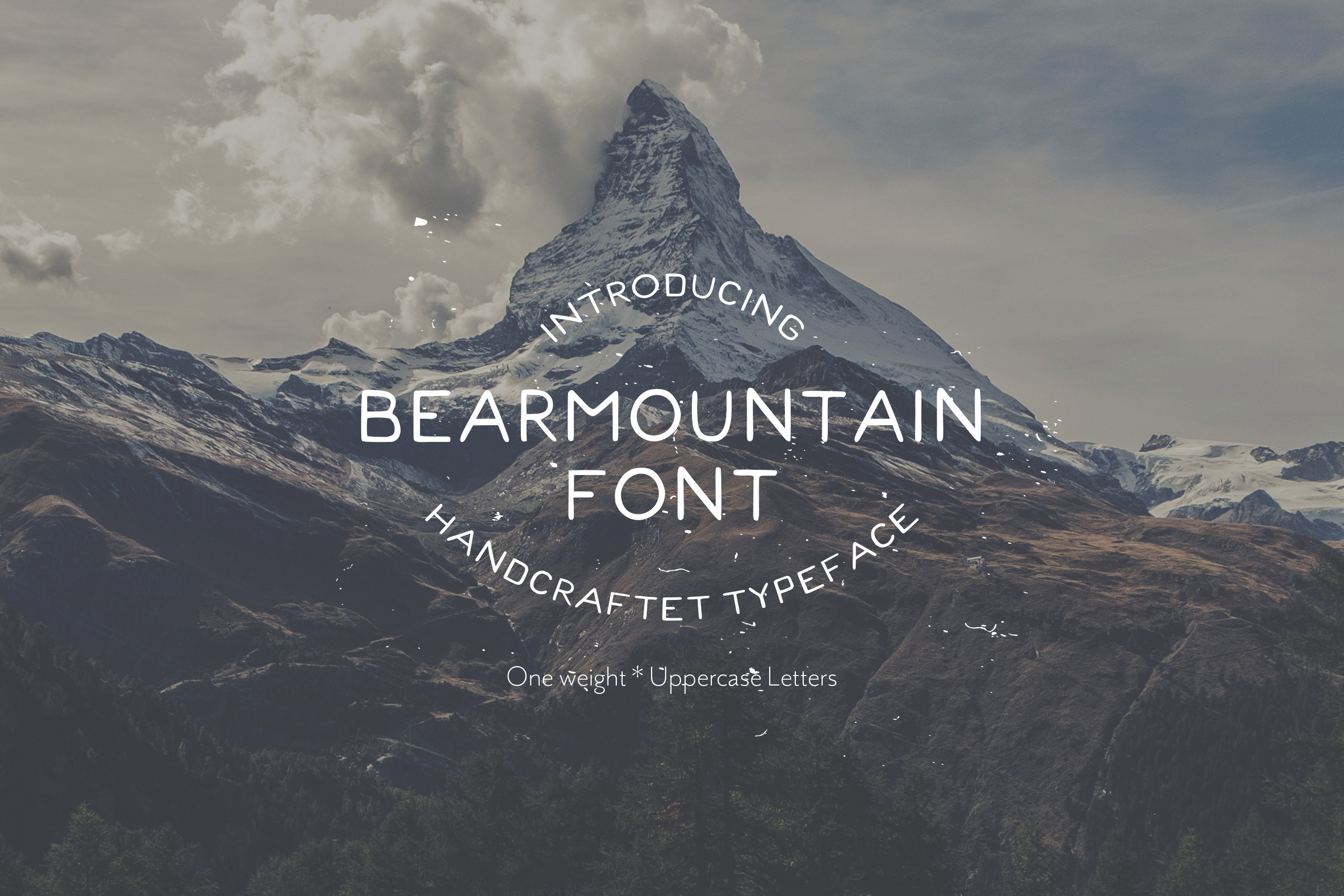
Bearmountain - Handmade Font
Bearmountain is a simple handmade font. Designed are the uppercase letters for a fancy handcrafted look. It works great for rustic or vintage style work. Great for getting that *handcrafted look you've been looking for!